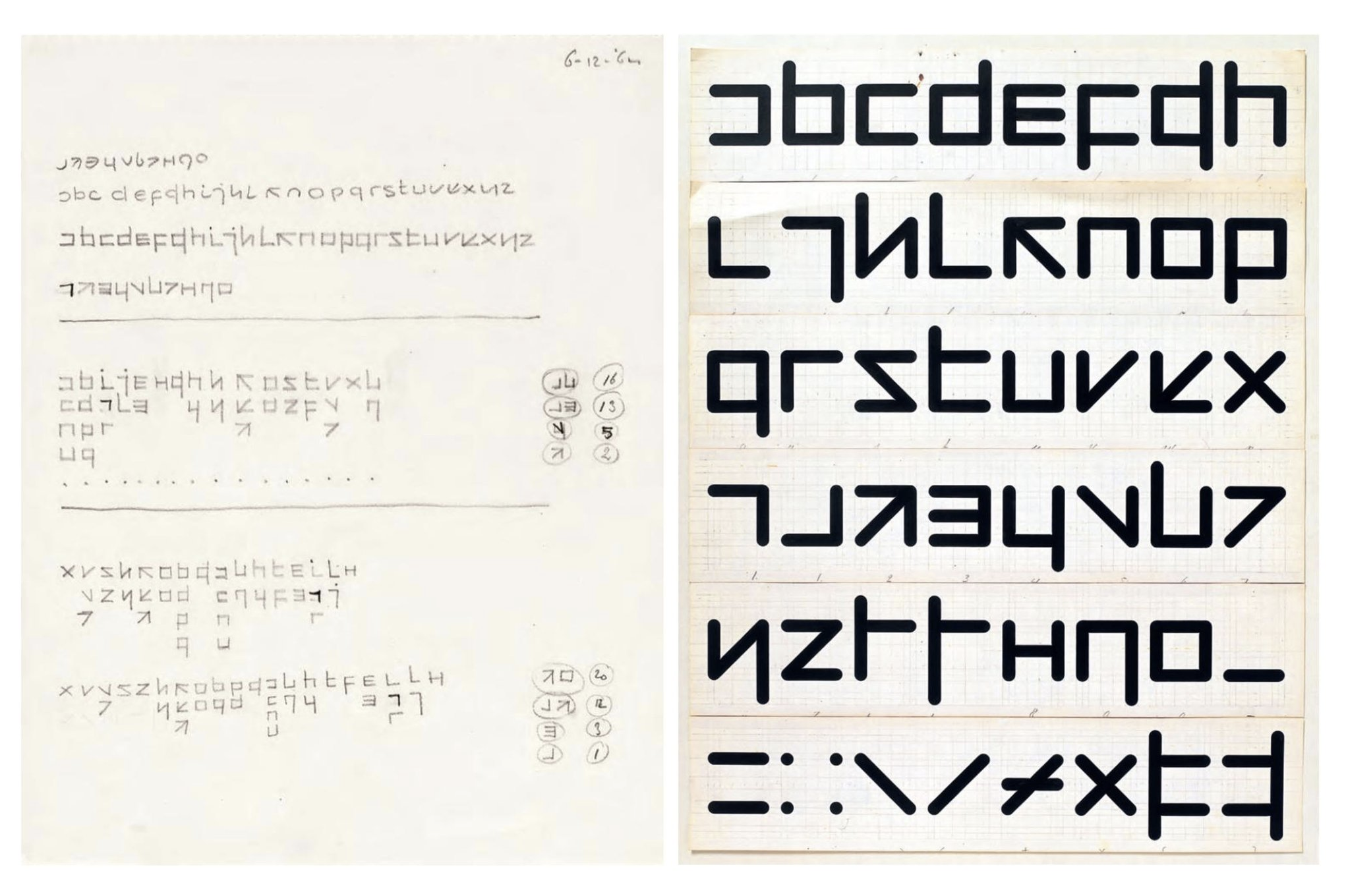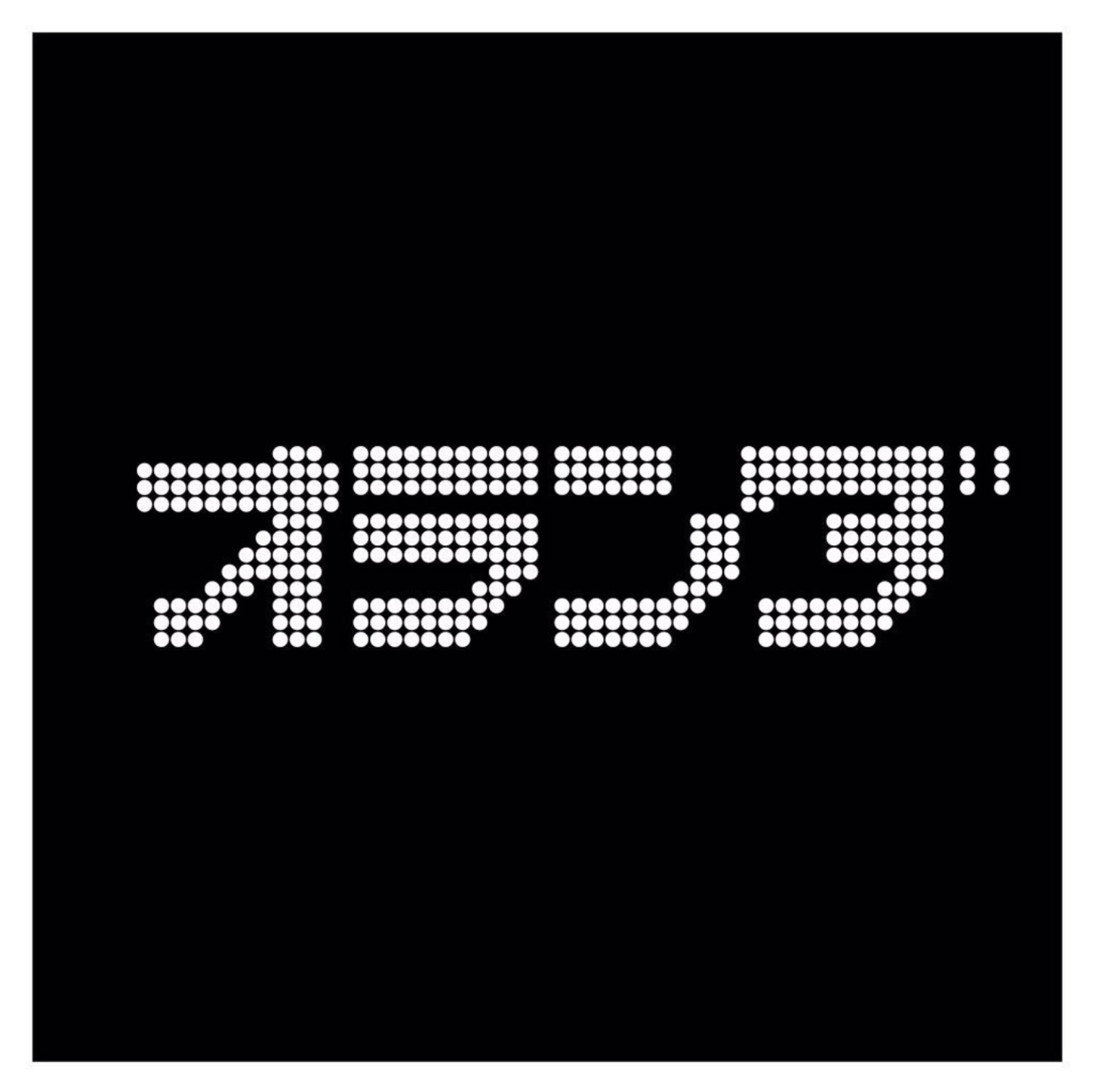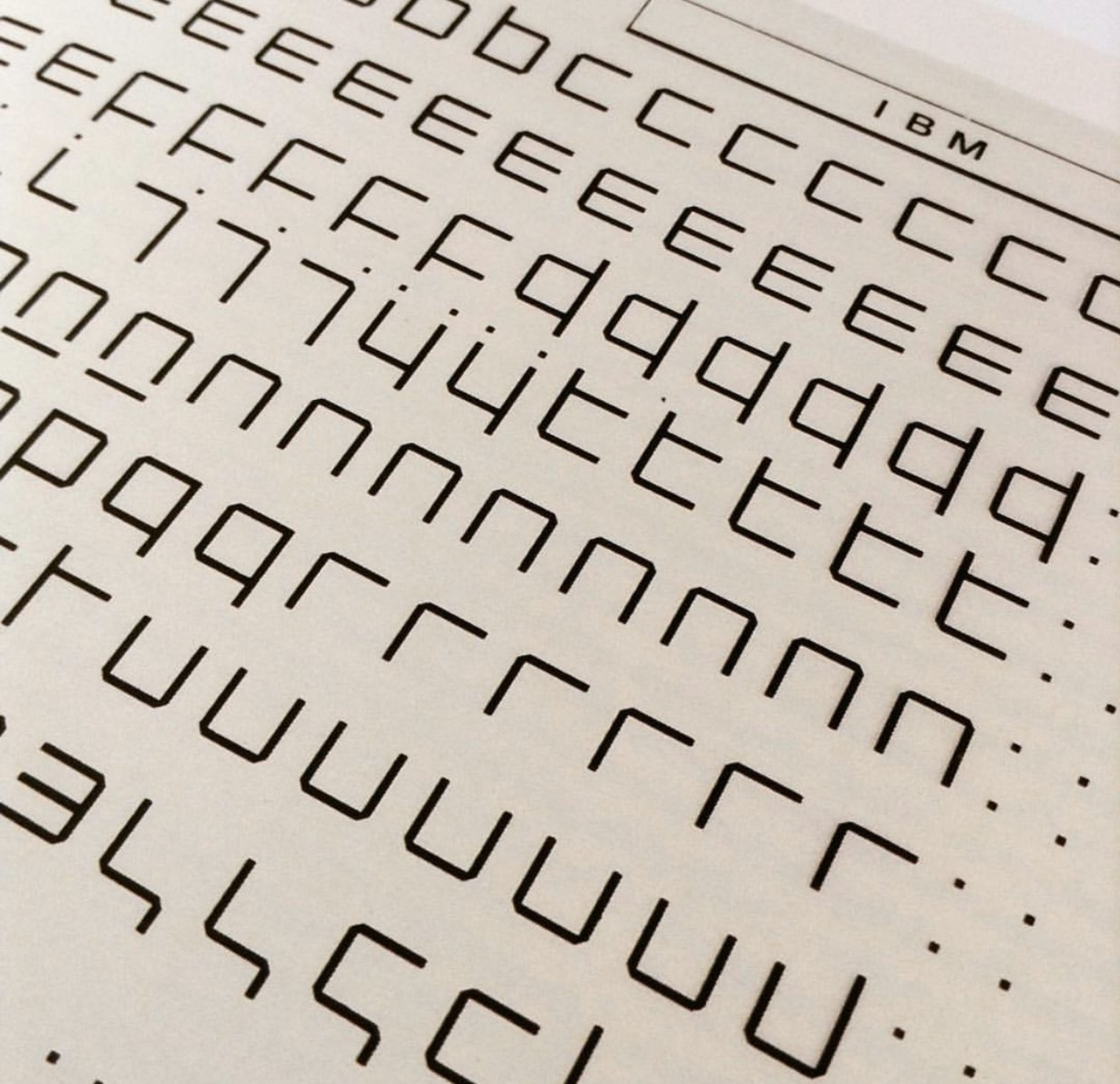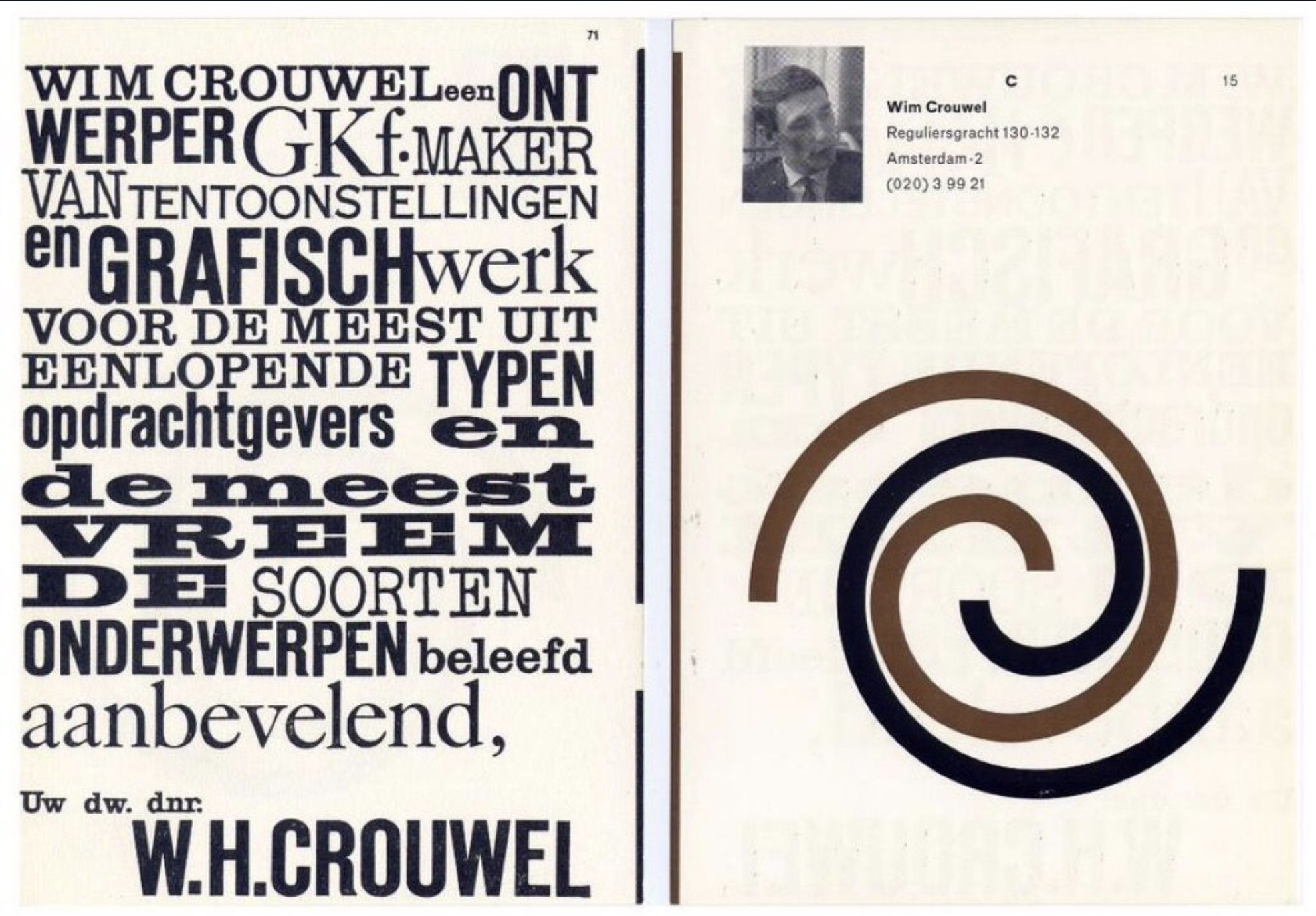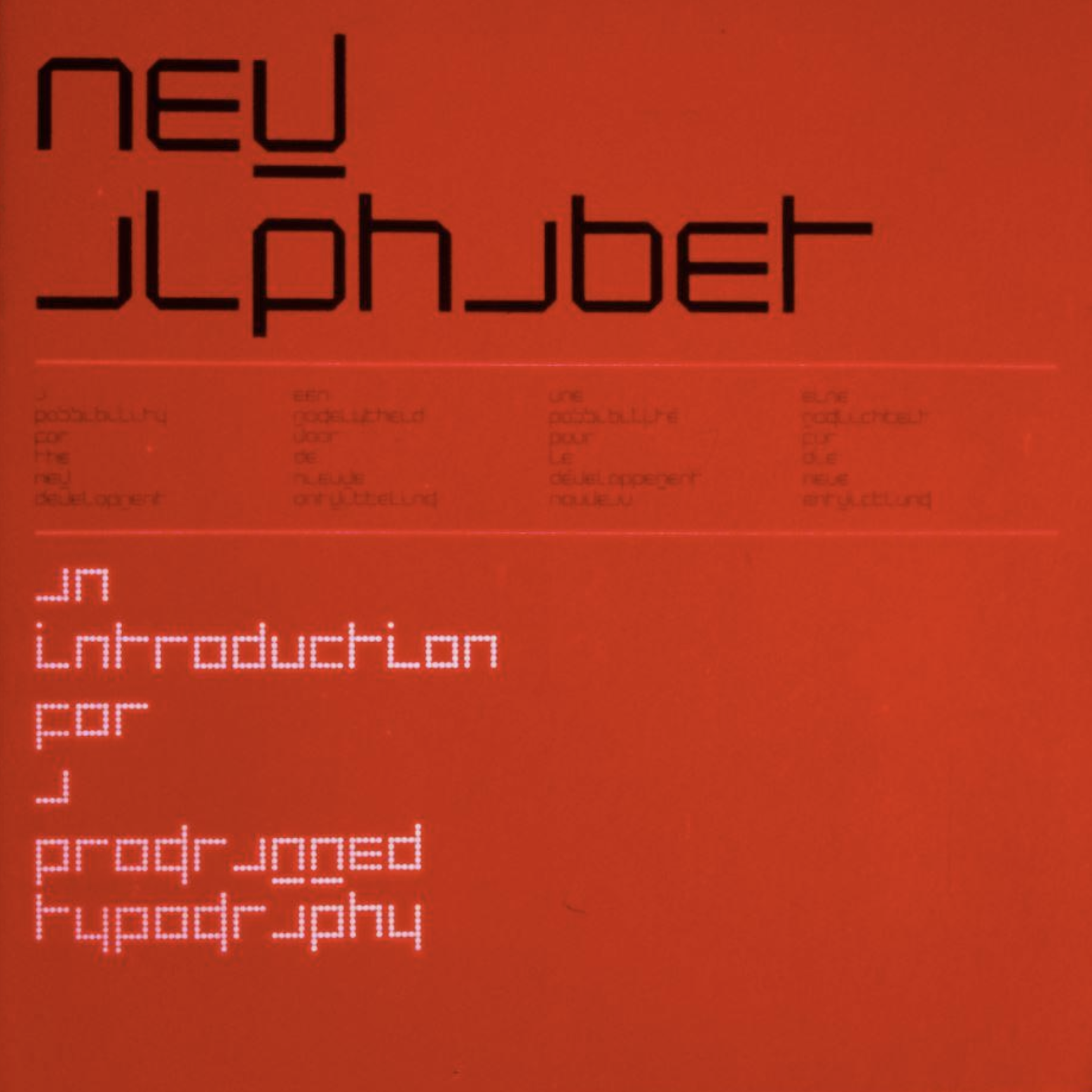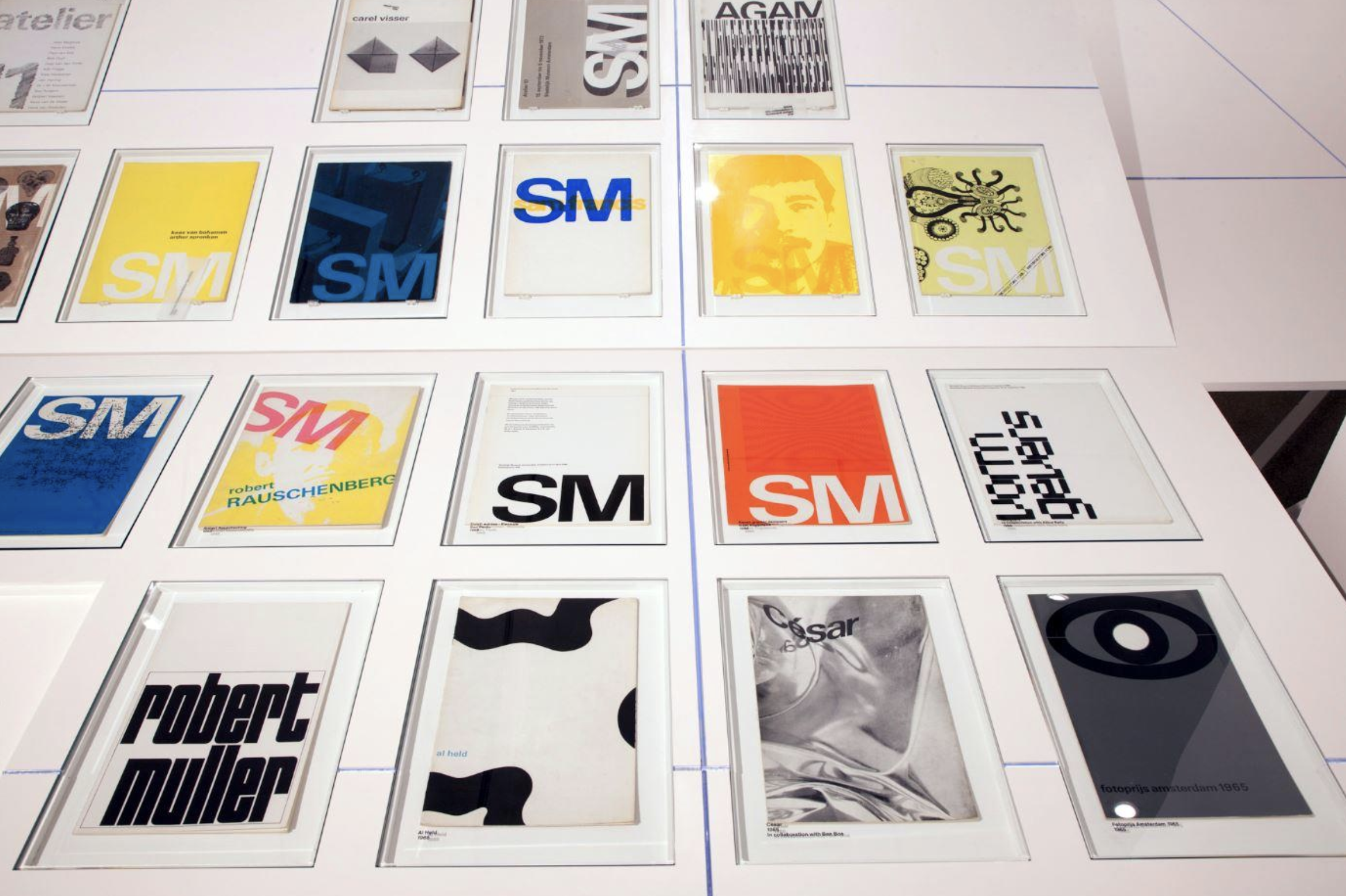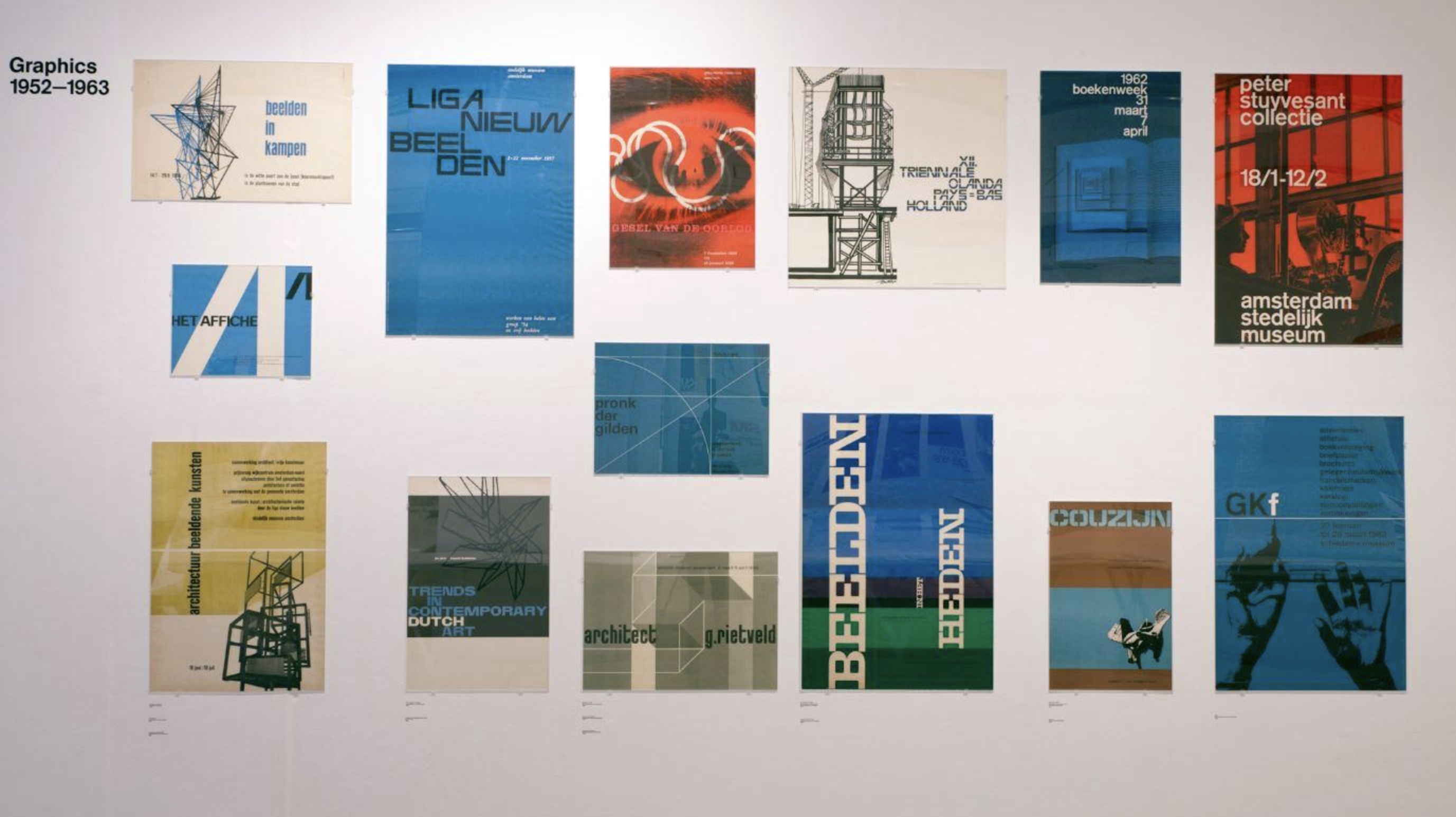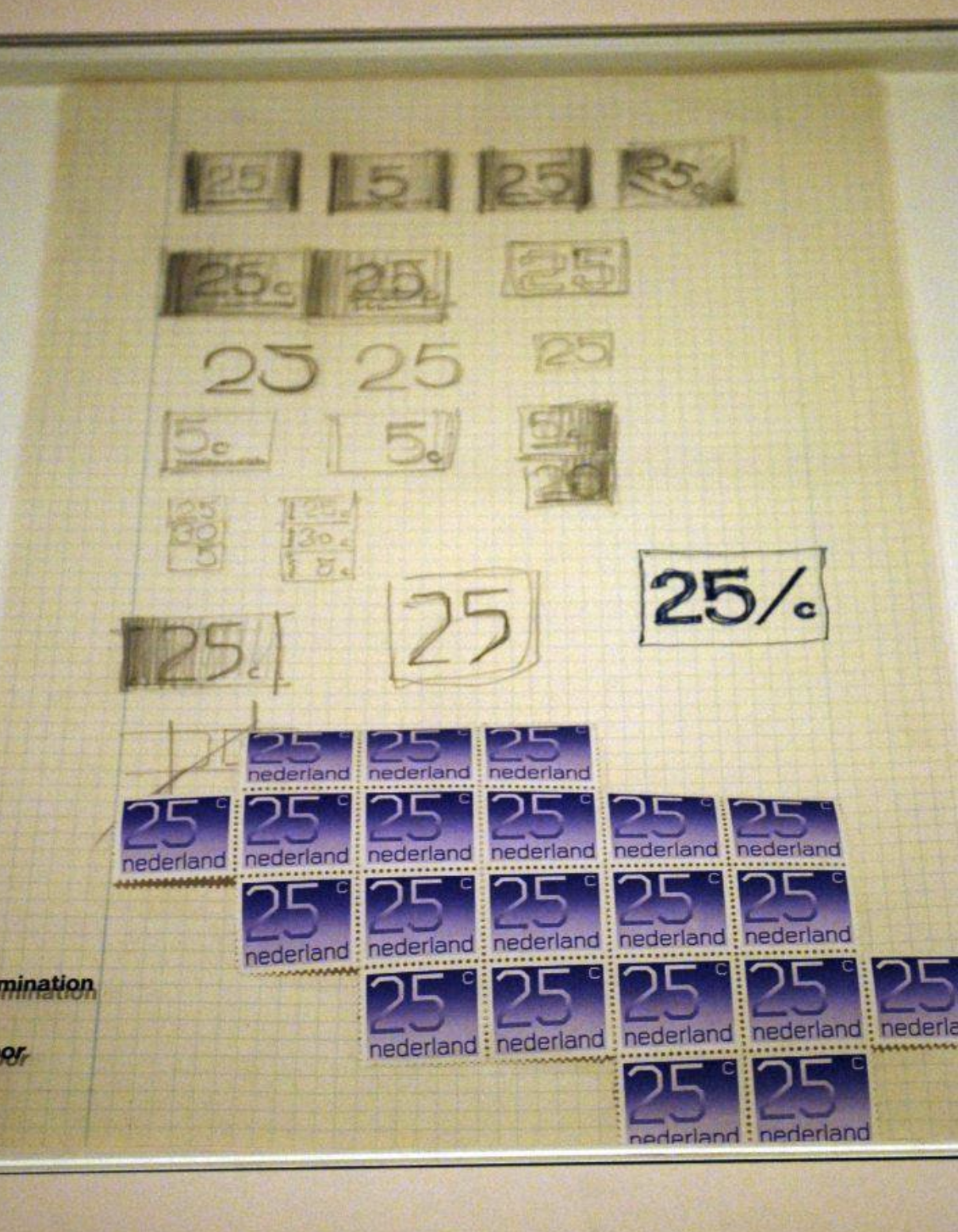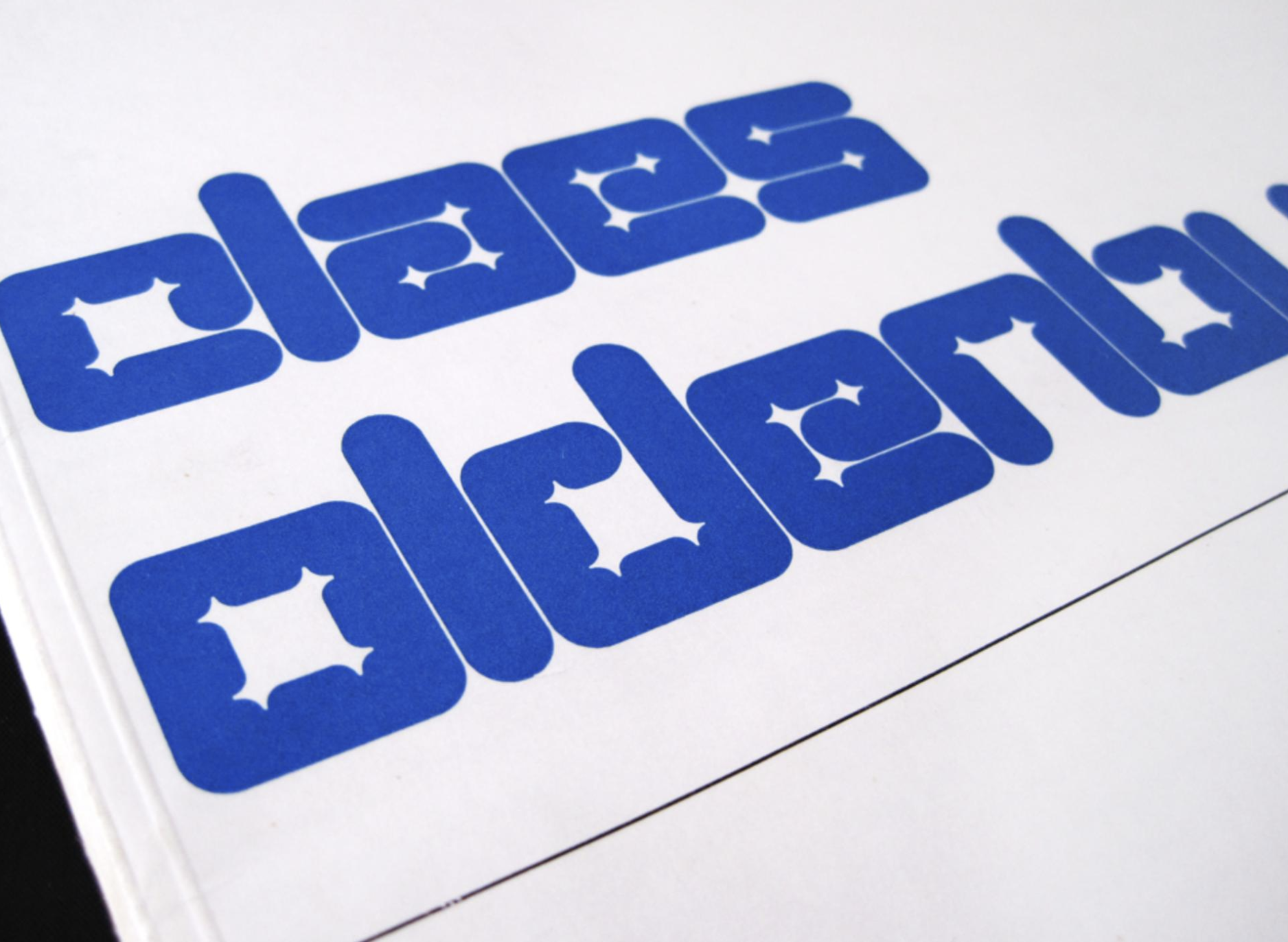
From Stedelijk Museum to Design Museum: two tributes for the iconic Wim Crouwel
Iconic and unconventional Dutch designer Wim Crouwel passed away last week and his legacy is remembered with a film and two tributes destined to remind us the importance of Mr. Gridnik's design philosophy for the decades to come.
“The career of Dutch designer Wim Crouwel spans six decades and covers an extraordinary journey from designer, teacher, curator to museum director” notes London's Design Museum in its tribute to Crouwel.
“Based on modernist principles, Crouwel's lucid and systematic approach to design is underpinned by a grid-based methodology. His process, logical yet experimental, distills a subject down to its absolute essence and in doing so he achieves great impact and purpose in both his exhibition and print design. Through his long and productive career he has produced exemplary work in exhibition design, and designed posters, calendars, typefaces, trademarks, and stamps” adds the museum whose latest Font Sunday Twitter fest was inspired and dedicated to the Dutch designer.
“Based on modernist principles, Crouwel's lucid and systematic approach to design is underpinned by a grid-based methodology”
On a more personal note, the Stedelijk Museum launched an online project dedicated to the legendary Dutch designer in which people who were influenced by the great designer share their memories.
“On Thursday, 19 September 2019 Wim Crouwel died at age of 90. With his passing the world loses a visionary thinker who was an eminent authority in the field of design” writes Stedelijk urging those who want to pay their respects to Crouwel to submit their sympathies, memories and condolences here.
“A phone book changed my life. Wim Crouwel typeset the 1972 edition in lower case only. It was the first time I became aware of something called graphic design. A simple decision. A beautiful result. And so many social implications. It was a declaration for a new society. Thank you, Wim” wrote Thomas Widdershoven.
“It is humbling to send this post into the air, but reassuring that this seismic loss is shared by so many. What arrogance on my part to assume that such greatness would and could live forever, for someone so inextricably tied to our profession, and our best hopes of what 'visionary' could mean in the context of form-giving. Thank you Wim, you will be missed, but never forgotten” noted Forest Young.
Also, from the 28th of September through the 22nd of March 2020, Stedelijk pays tribute to the iconic designer with a selection of his typographic oeuvre with its Wim Crouwel: Mr. Gridnik survey exhibition.
“Wim Crouwel (1928), co-founder of the first multidisciplinary design agency in the Netherlands, Total Design in 1963, is one of the Dutch best-known designers. He is internationally renowned for creating projects for numerous organizations and institutes including the Van Abbemuseum, the Stedelijk Museum, designing fonts such as the 1967 New Alphabet, company logos etc. Crouwel was also a notable spokesperson for the profession and was always forthright in sharing his own views. He was the sole designer of the Stedelijk Museum’s visual communications from 1963 to 1985” adds the Museum of Mr. Gridnik.
“Throughout his career, Wim Crouwel was a fervent advocate of the grid system, a tool he considers one of the most important in the designer’s toolbox. His practice was profoundly influenced by the Swiss school of graphic design, whose rational, minimalist approach was organized around a grid system. Crouwel employed the grid structure in his designs for the Van Abbemuseum in Eindhoven (1956-1964) and later for the Stedelijk Museum.”
“At Total Design, grid sheets provided templates for the abundance of typographic work produced for the Stedelijk. Crouwel has always favored an analytical approach, believed in technology and progress, and promoted design as an independent profession. His preoccupation with grid systems was the subject of the exhibition Wim Crouwel: Fascinated by the Grid, which was on show in Japan in 2017 and 2018. Crouwel’s design projects for the museum comprise a monumental oeuvre that has cemented his reputation.”
“Wim Crouwel (1928) started his career in 1952 as an exhibition designer but became best known as a graphic designer. In addition to being a designer, he was also a lecturer, professor, organizer and spokesperson. From 1985 to 1993 he was director of Museum Boijmans van Beuningen in Rotterdam” notes the introductory text to the upcoming must-see exhibition.
A leading figure in Dutch design and in Dutch cultural life, Crouwel's work “still shapes the practice of many young designers throughout the world” whilst the Wim Crouwel Institute will share his wisdom and heritage to the younger generations.
The exhibition will also screen the new documentary on Wim Crouwel: Wim Crouwel Modernist by graphic designer and filmmaker Lex Reitsma.
“Crouwel has always favored an analytical approach, believed in technology and progress, and promoted design as an independent profession”